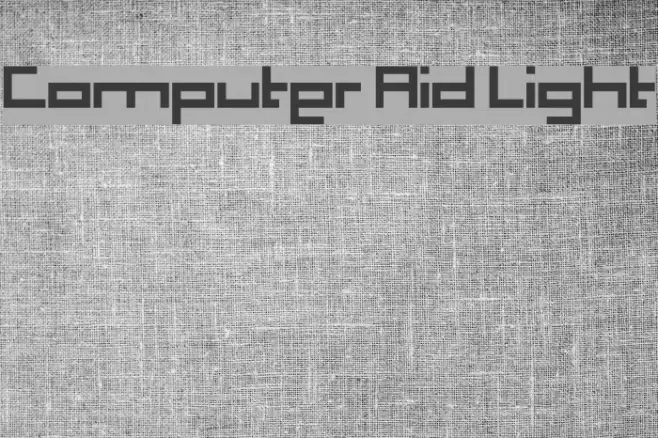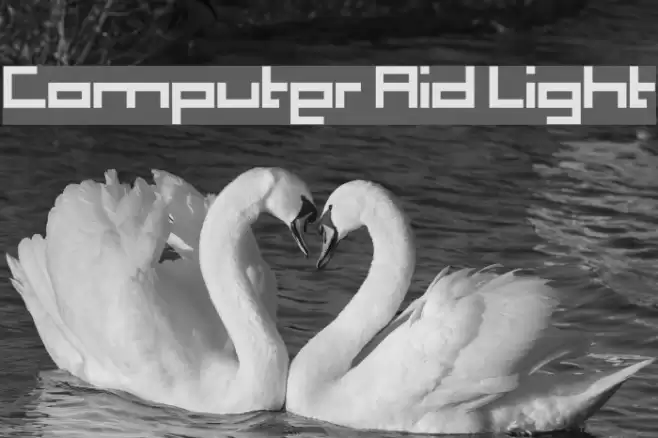
Computer Aid Light Font
Computer Aid Light Description
This font features a geometric, block-like design with a distinctly modern and digital aesthetic. Each character is constructed with sharp, angular lines and uniform stroke widths, giving it a structured and mechanical appearance. The uppercase and lowercase letters maintain a consistent height, contributing to a monospaced feel, although the font is not strictly monospaced. The numerals and special characters follow the same design principles, ensuring a cohesive look across all glyphs. The font's style is reminiscent of early computer graphics and digital displays, making it ideal for projects that require a futuristic or tech-oriented vibe.
A geometric, block-like font with a modern, digital aesthetic from Uncategorized fonts.
- Proposed Projects: Ideal for tech-related branding, digital art, video game interfaces, and futuristic design projects.